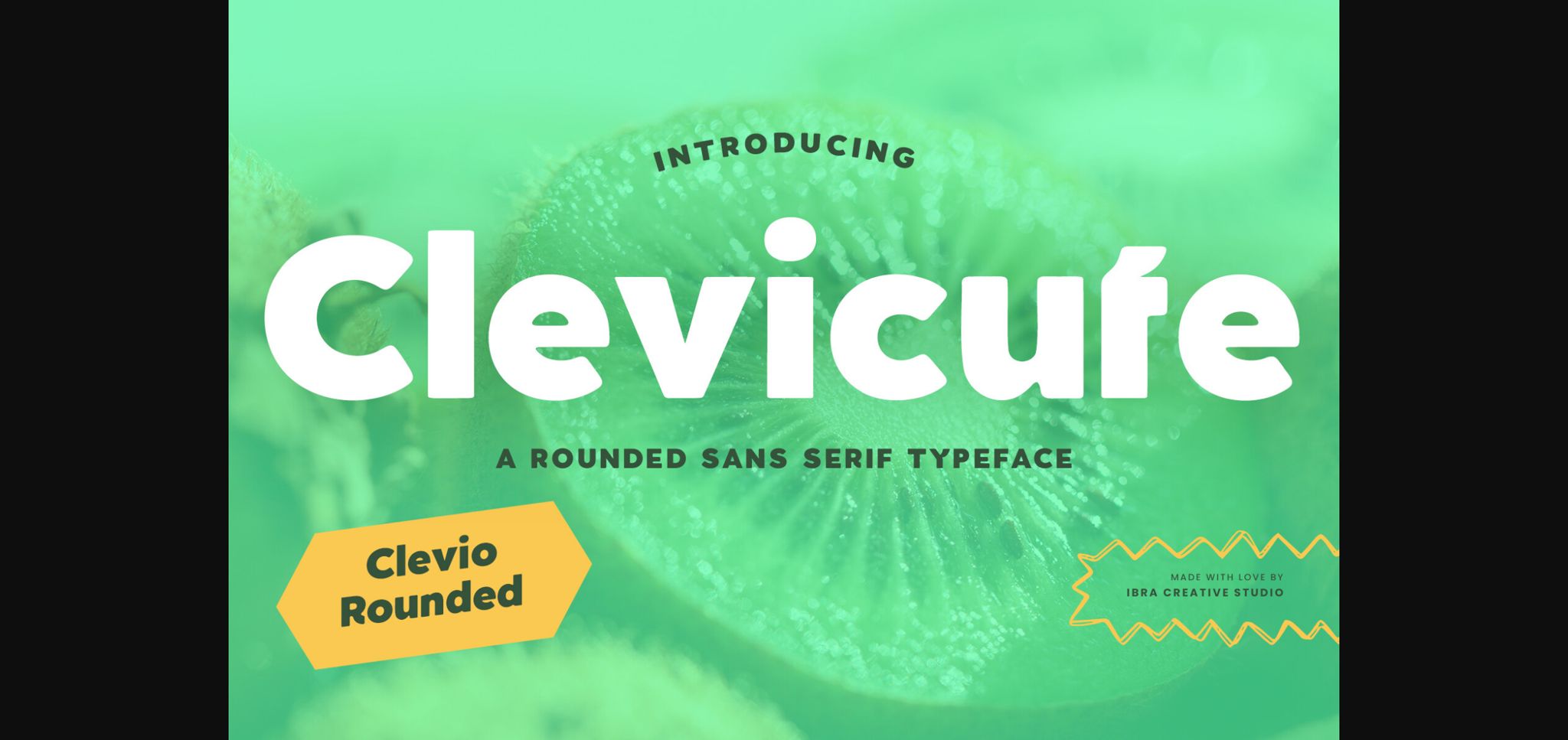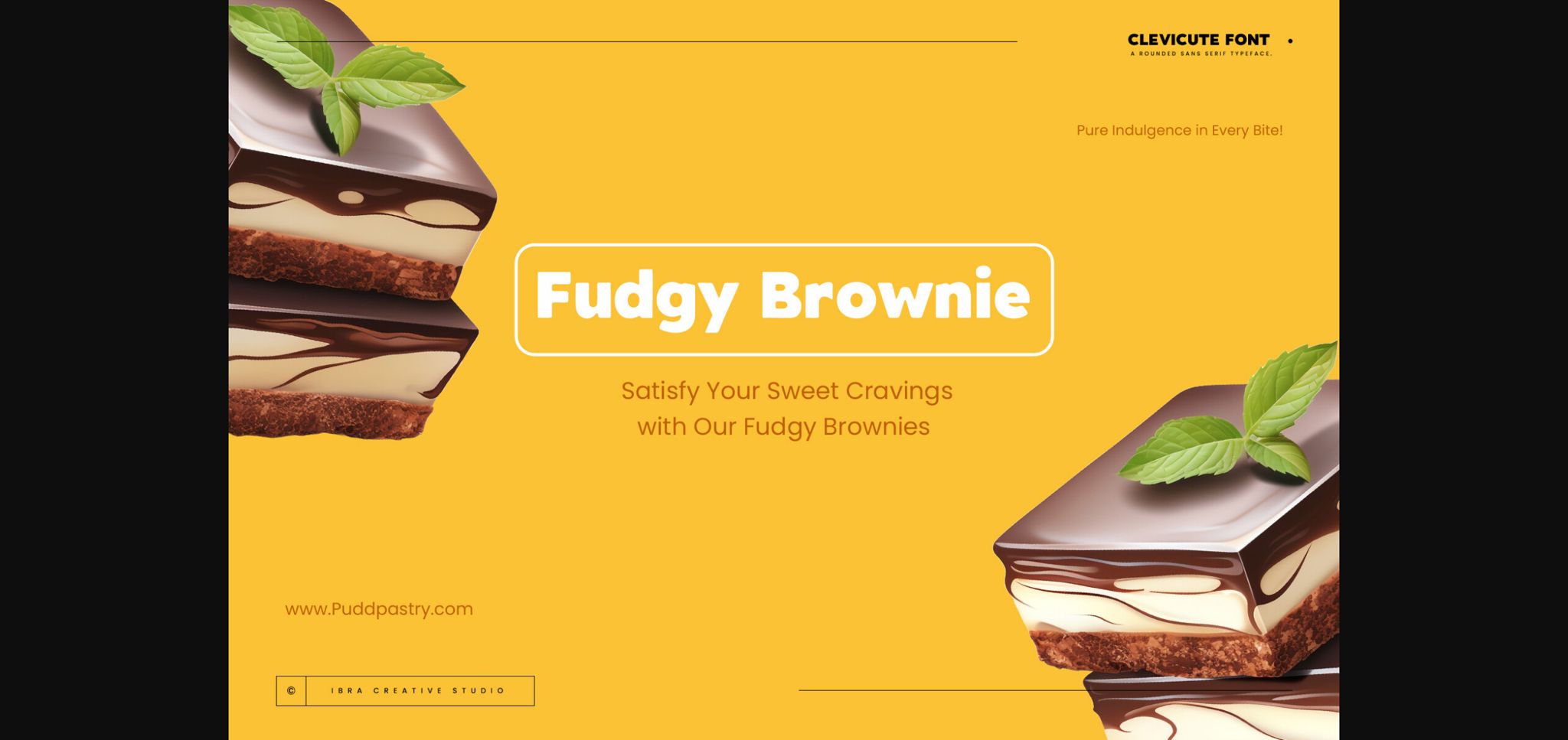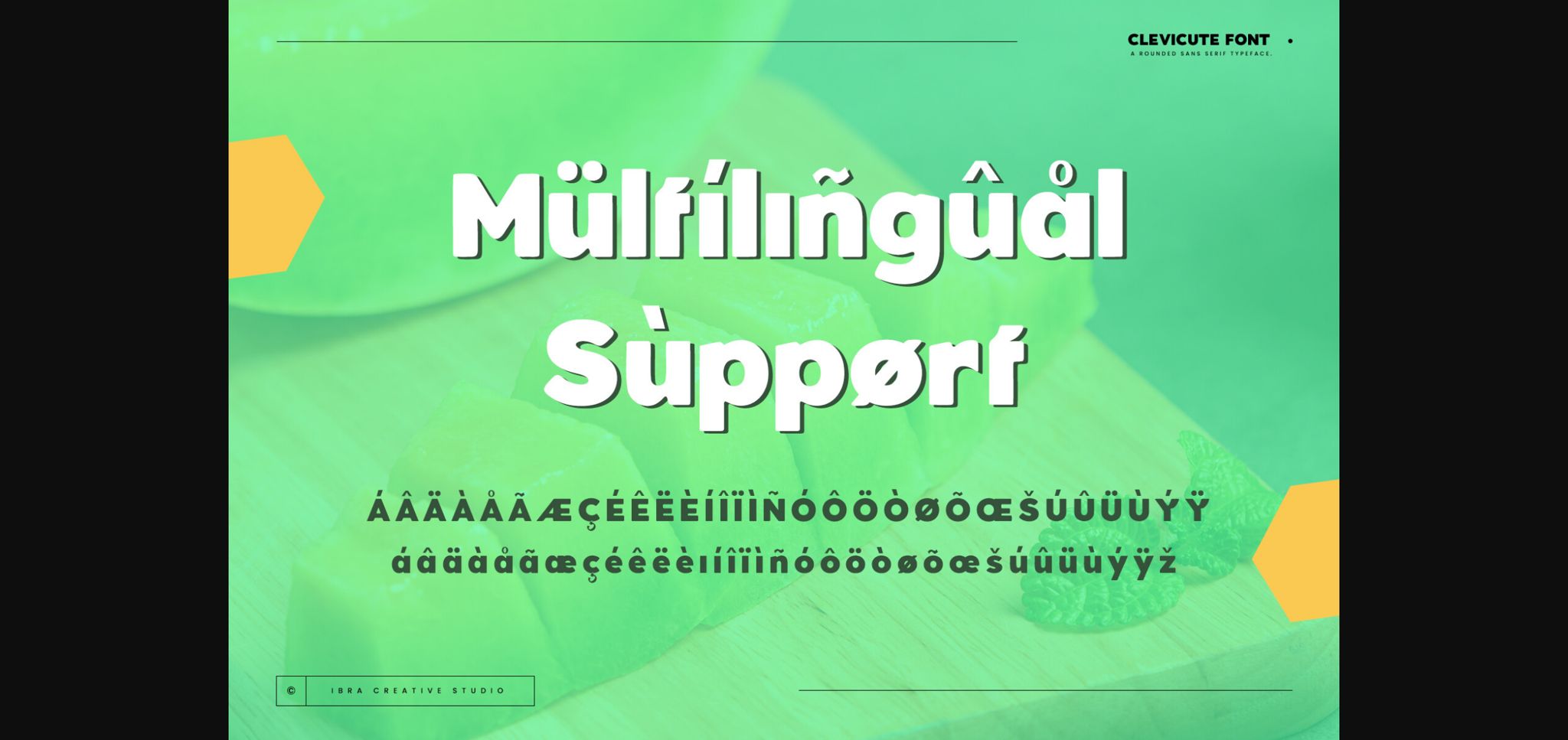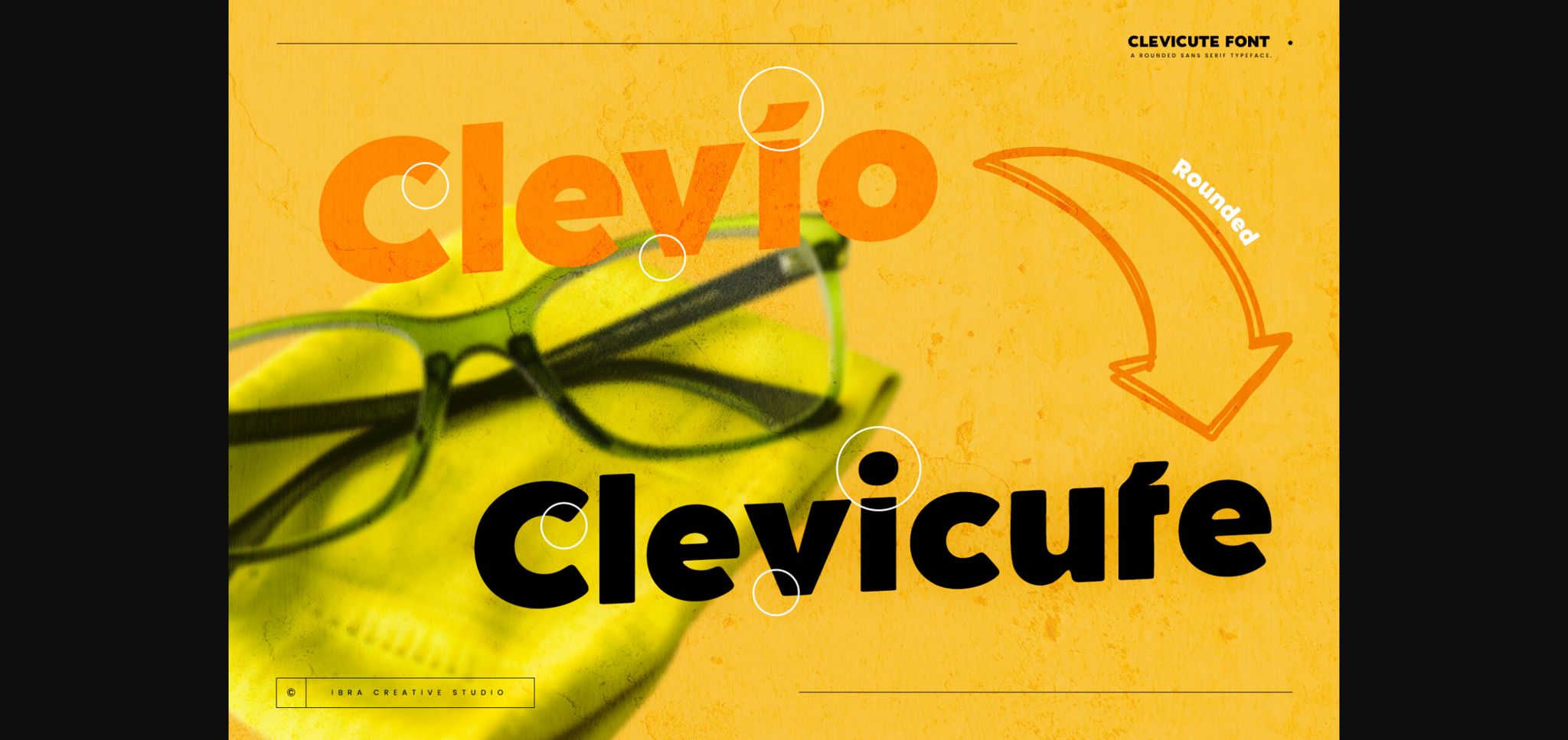
About Clevicute Font
Clevicute, a rounded sans-serif typeface, exudes a playful and friendly demeanor with its soft curves and harmonious proportions. The rounded terminals of each letter convey a sense of approachability, making it an ideal choice for projects that seek a balance between modern aesthetics and a warm, inviting feel. Whether used in branding, headlines, or digital interfaces, Clevicute adds a touch of whimsy and versatility to the visual landscape.